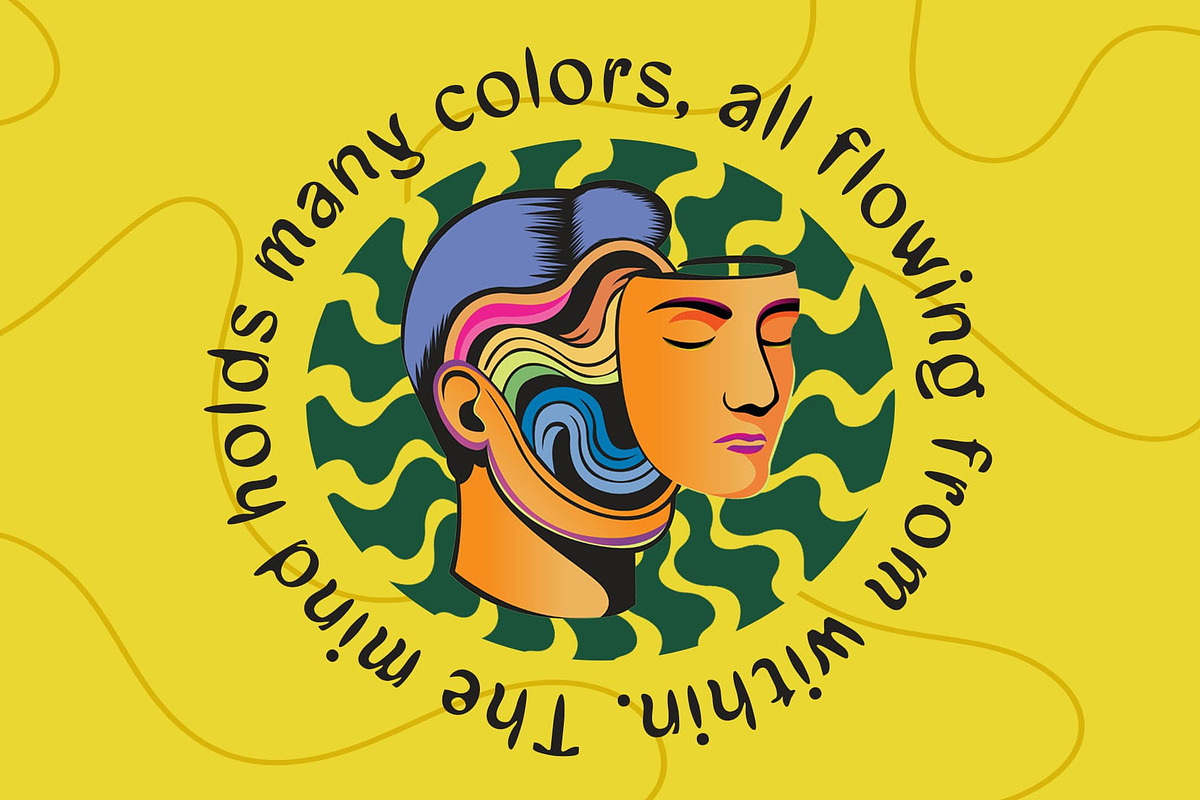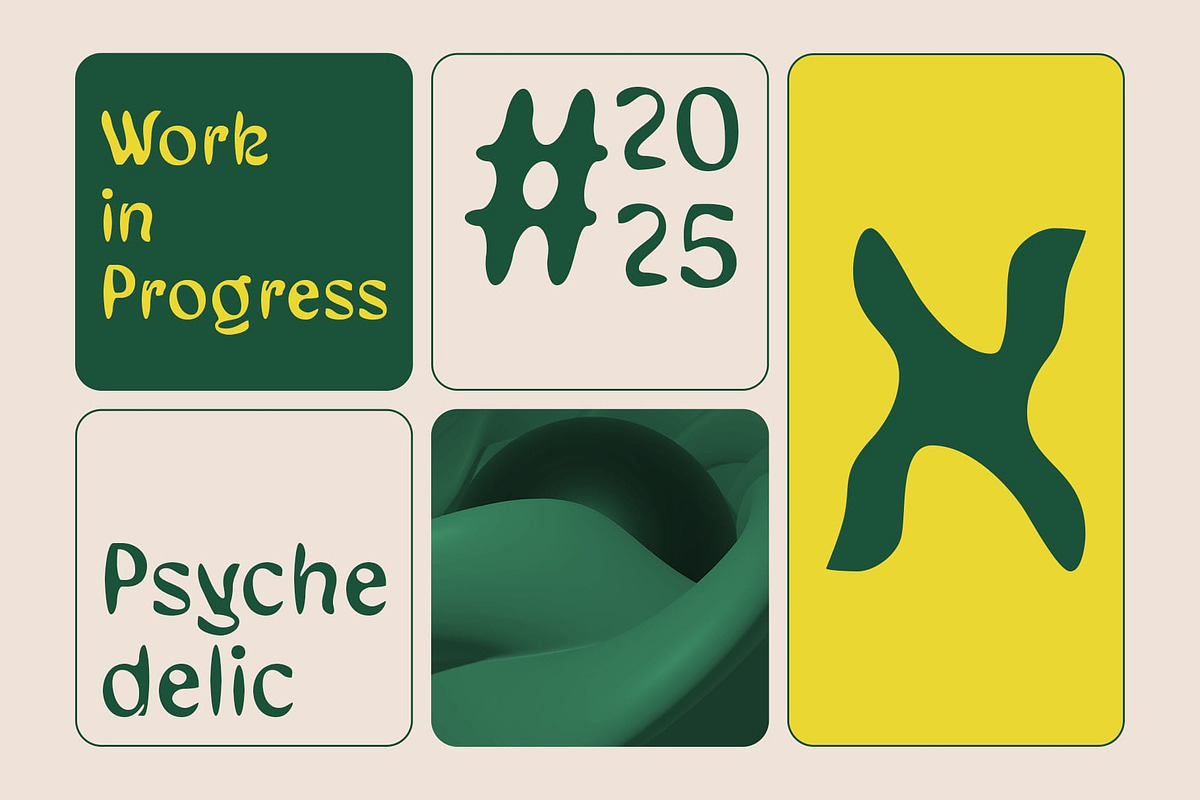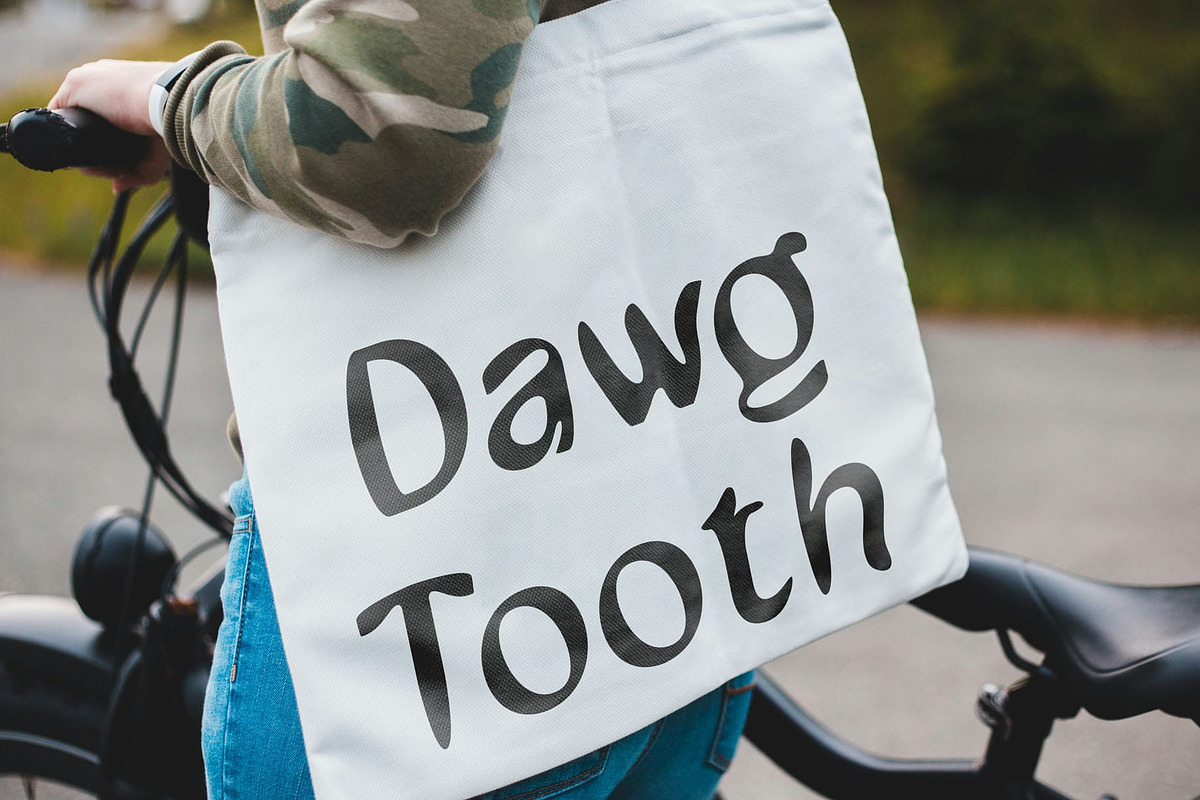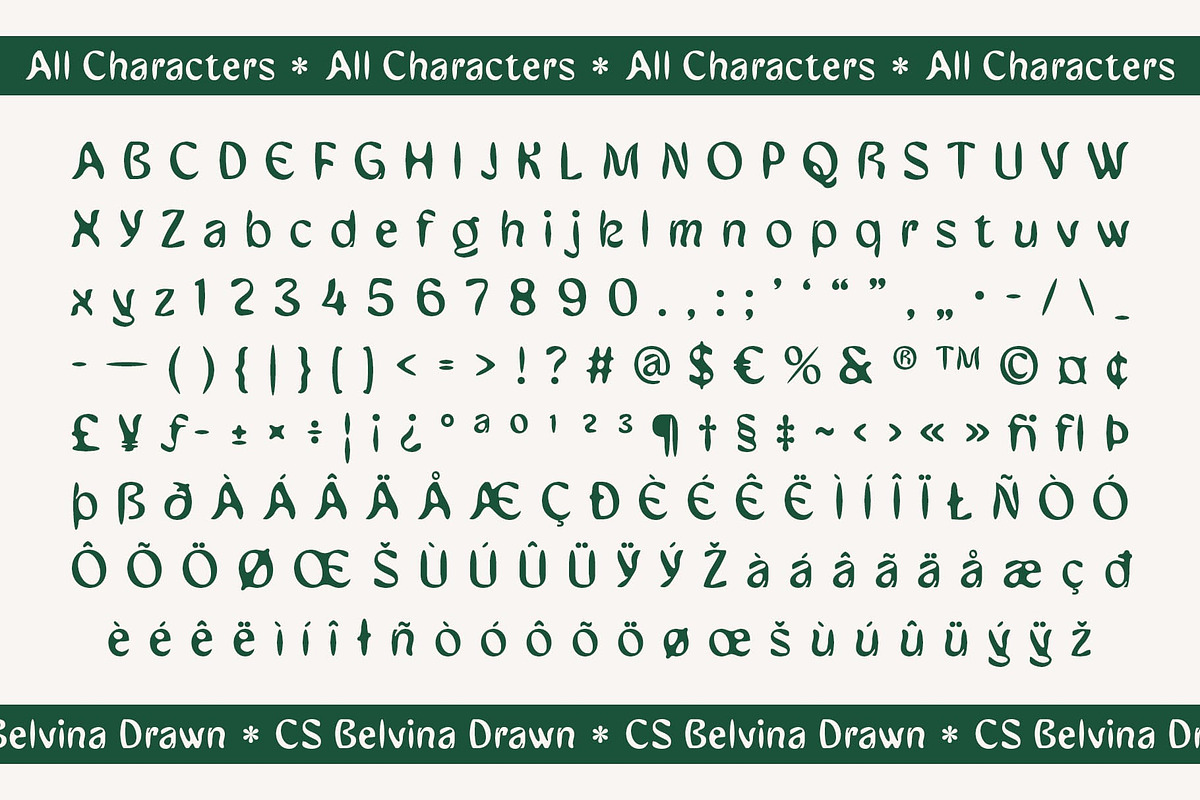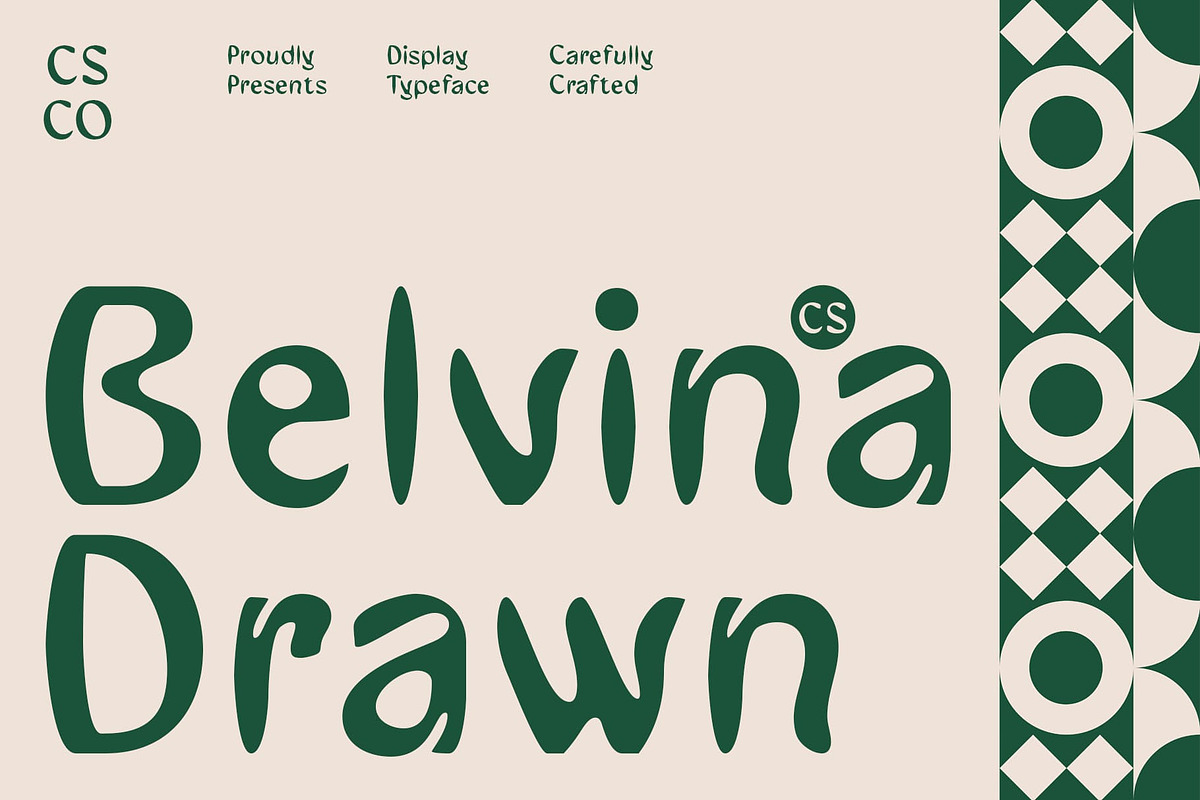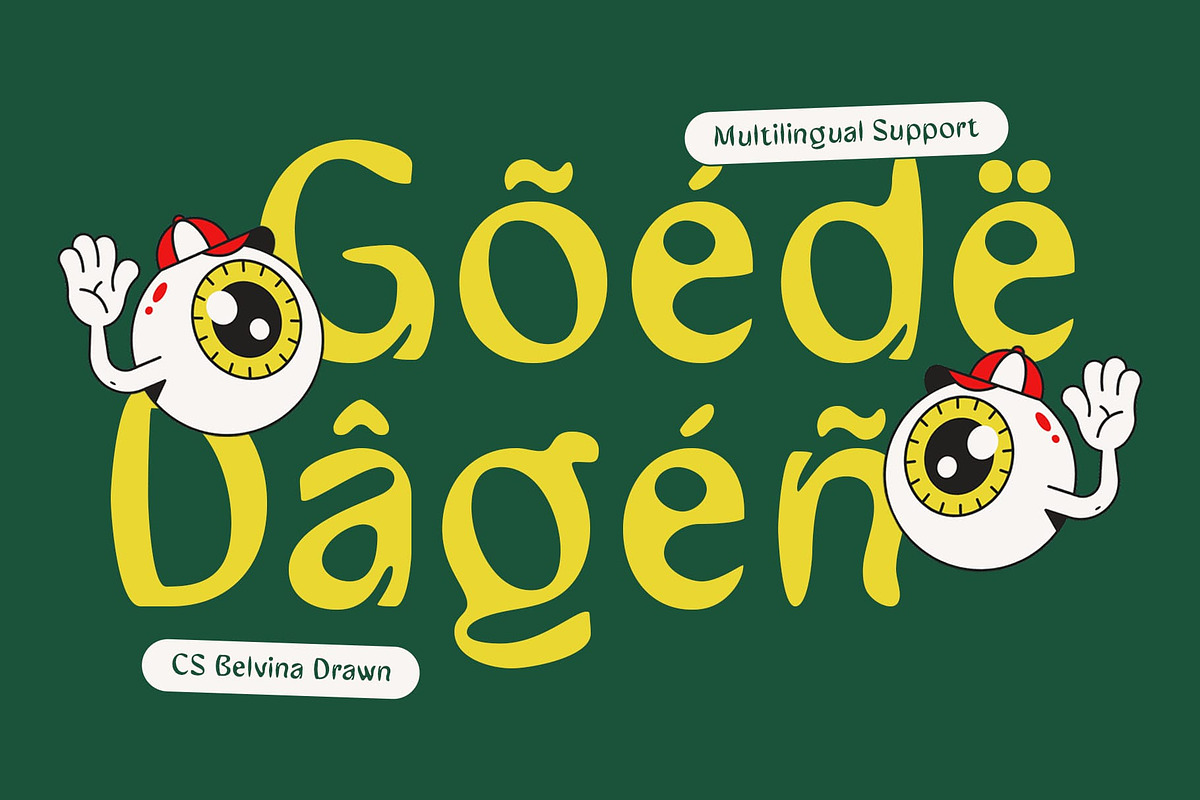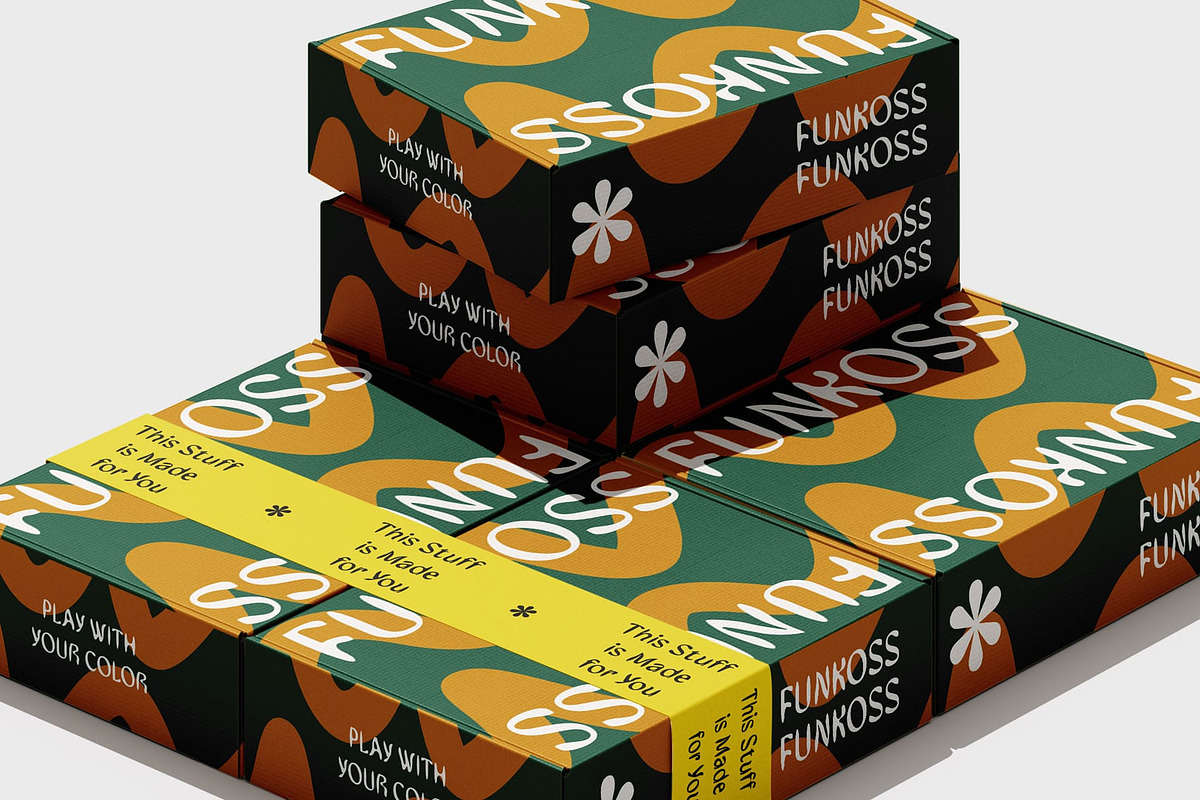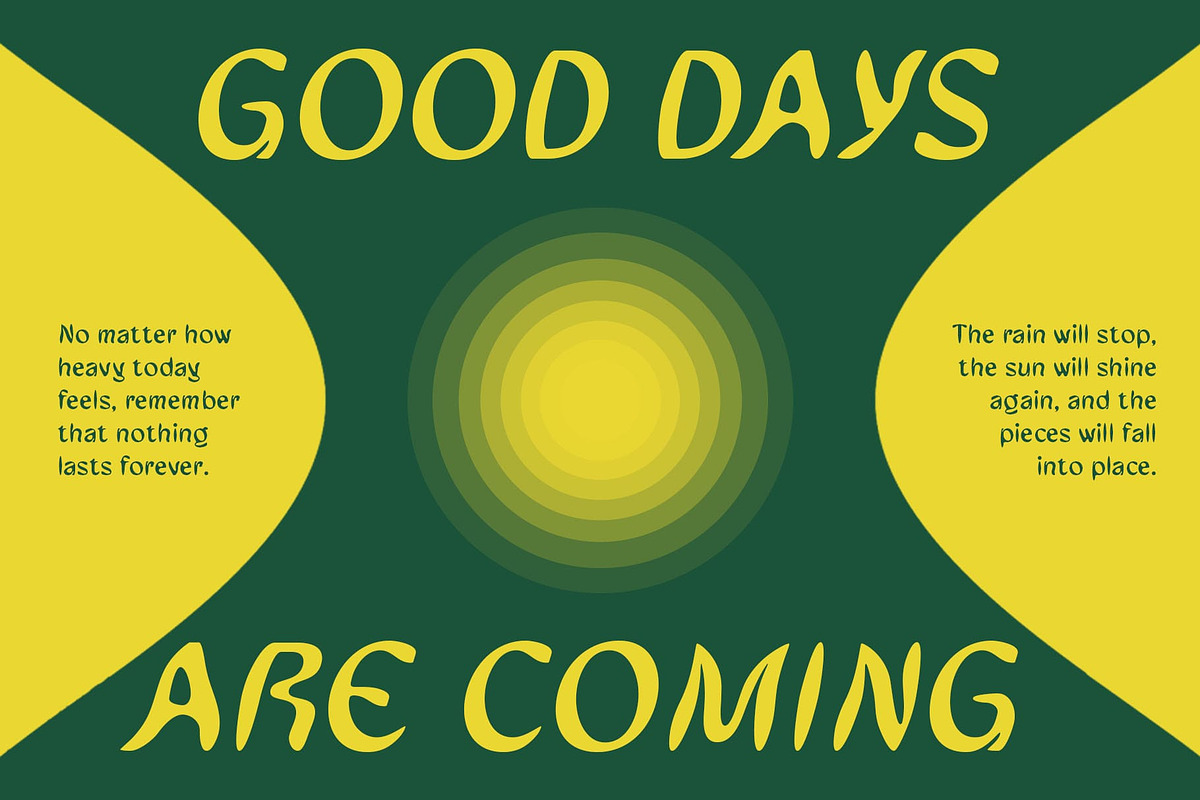
CS Belvina Drawn
CS Belvina Drawn – Psychedelic Energy in Modern Form
Bold Psychedelic Style with Contemporary Structure This is a modern display font that fuses clean, contemporary shapes with bold psychedelic influences. Its dynamic and unconventional letterforms bring energy and movement, capturing attention instantly. The design reflects a balance of modern layout precision and expressive, trippy aesthetics, making it ideal for visual storytelling with impact.
Handcrafted Texture from Drawn Effect The drawn effect introduces an artistic, handmade quality that softens the digital sharpness of the font. This organic texture gives each character a crafted feel, adding personality and depth to the overall appearance. It makes the font feel alive—perfect for creatives who want to showcase authenticity and a human touch.
Creative and Expressive Visual Identity With its eccentric rhythm and visually captivating structure, this unique font brings a strong creative voice to any layout. Its expressive tone makes it suitable for modern designs that seek to be bold and different while retaining structure and readability.
Perfect for Posters, Experimental Art, and Unique Branding Ideal for music posters, psychedelic-themed projects, art festivals, and bold branding, this expressive font stands out wherever it’s used. It’s especially well-suited for designs that embrace creativity, push boundaries, and emphasize unique visual identity.